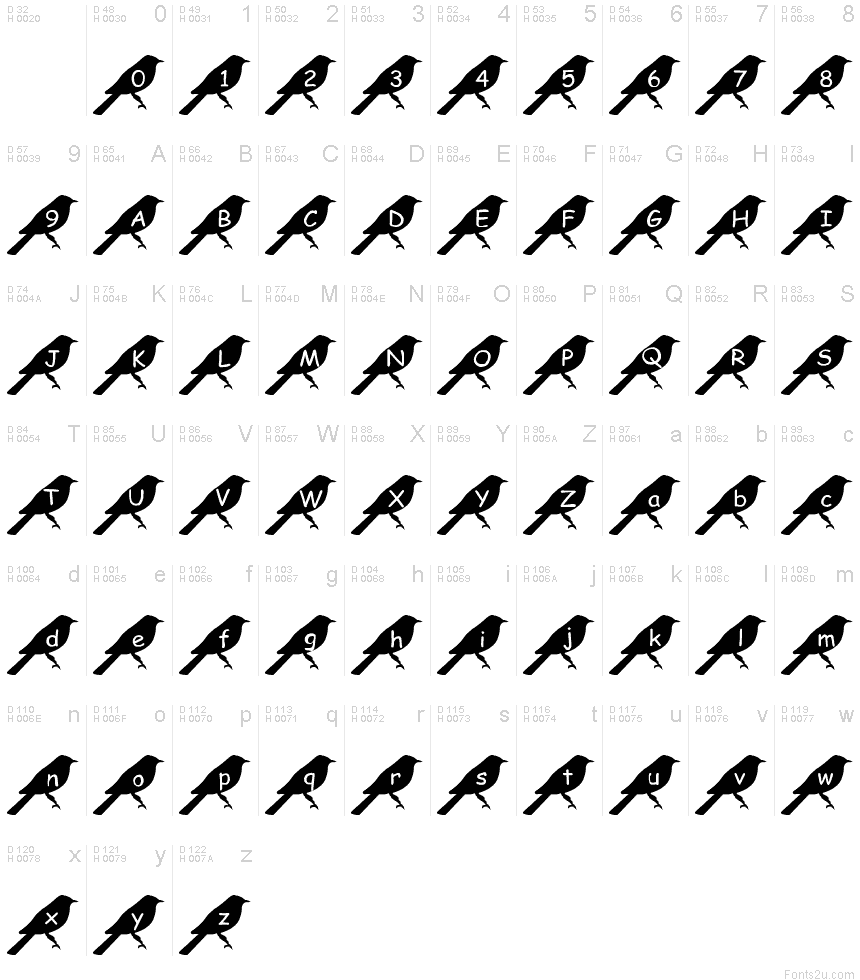
pf_bird2
PF Bird2 by Scholarly Dragon Press is a free bird-silhouette display font with a playful alphabet built into perched blackbird shapes. The repeating idea is simple and memorable: each letter appears as a white cutout inside the same chunky bird form, so the font reads like a small flock while keeping a hand-drawn, storybook mood.
It fits posters, classroom materials, nature-center graphics, zines, greeting cards, and short branding where a free font can carry both image and lettering at once. Use it for short headlines, badges, title lines, or monograms when you want the bird motif to do the talking and turn even a few letters into a graphic element.